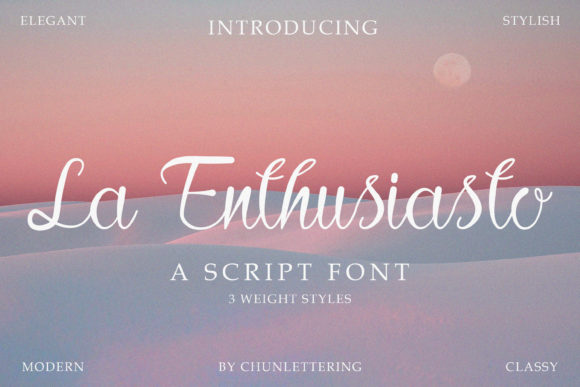
Journey into the realm of breathtaking elegance and charm with La Enthusiasto Font, a script font crafted to unveil the allure of timeless beauty in every character. Gaze upon its neat stroke shapes and clean glyphs, designed to dance across your creative canvas with undeniable grace.
Unleash your imagination and let La Enthusiasto guide you through a symphony of design possibilities. Its versatility knows no bounds, effortlessly enhancing wedding invitations, logos, social media posts, product packaging designs, labels, stationery, and photography watermarks.
Picture the delicate letters of La Enthusiasto adorning your website, drawing visitors in with its enchanting aura. Its carefully crafted curves and dynamic movement create an atmosphere of captivating sophistication. Elevate your brand's identity with a touch of class and distinction.
Immerse yourself in the world of extraordinary typography, where every letter carries a tale of elegance and grace. Let La Enthusiasto ignite your creative spark, transforming your designs into masterpieces of visual artistry. Embrace the allure of timeless beauty and watch as your creations blossom into a symphony of visual delight.
With La Enthusiasto at your fingertips, you'll unlock a treasure trove of aesthetic possibilities, leaving an indelible mark on the hearts of your audience. It's the perfect font for those seeking to infuse their designs with a touch of timeless charm and undeniable elegance.
Dare to be different, to stand out from the crowd. Choose La Enthusiasto and let your designs speak volumes about your discerning taste and unwavering commitment to aesthetic excellence. Invest in the art of visual storytelling and see your brand flourish amid a sea of mediocrity.